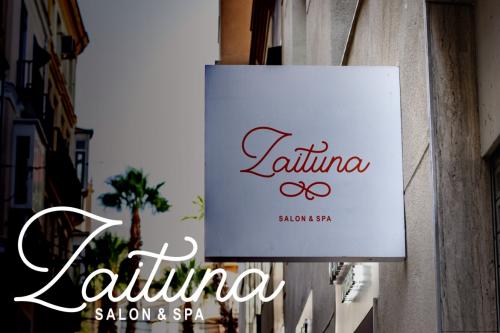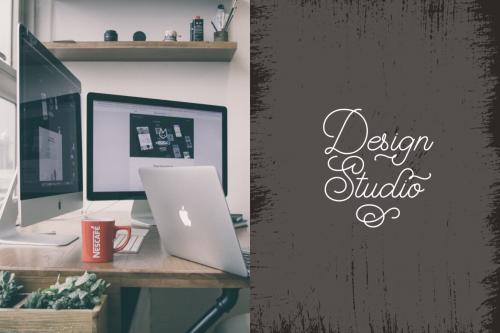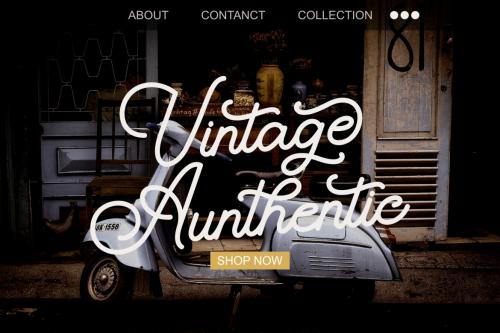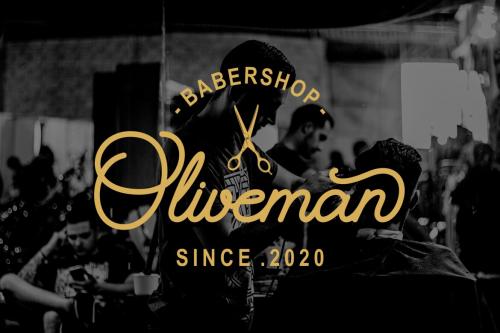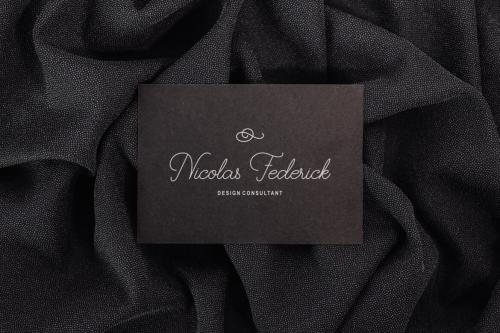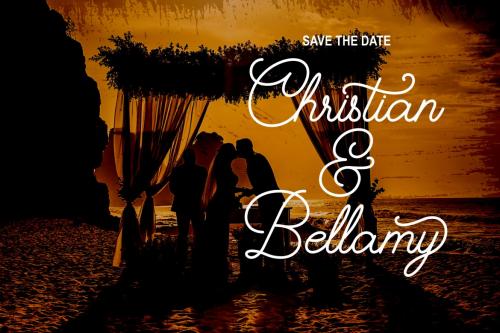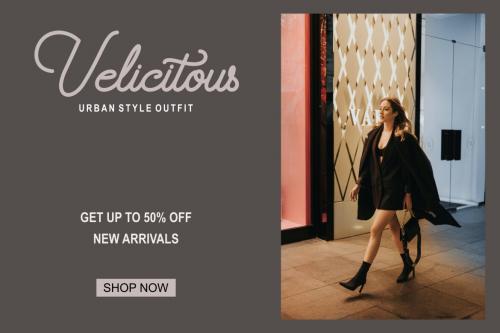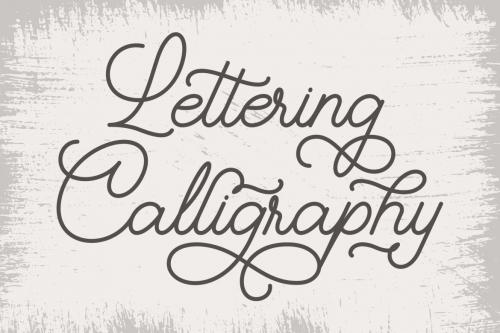
Daylane is a new modern monoline script that suits for watermark, branding, logo, invitations, stationery, wedding designs, social media posts, advertisements, product packaging, product designs, labels, photography, special events, and more.
Daylane has three styles for each font, Regular, Light, and Bold. Daylane Font also has a standart Multilingual Support.